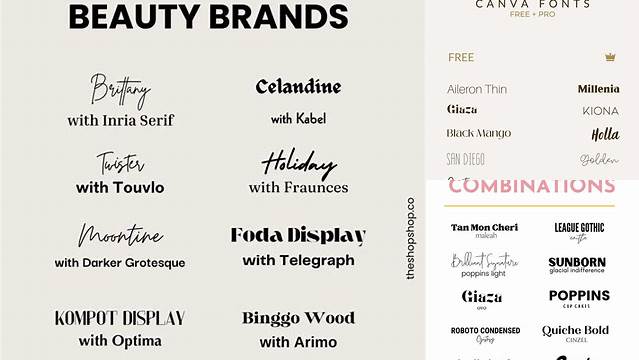
Best Canva Fonts For A Business Logo: Top Picks
Choosing the right font for your business logo is crucial. It’s like picking the perfect outfit for a first date – you want to make a strong impression! With Canva, you've got a treasure trove of fonts at your fingertips, but navigating them can feel overwhelming. Don't worry, guys! We're here to help you find the best Canva fonts to make your business logo stand out. This article will dive deep into a variety of fonts and how they can impact your brand identity, ensuring you pick a font that truly represents your business. Let's get started!
1. Canva Fonts for Modern Logos
When you're aiming for a modern logo, the font you choose plays a vital role in conveying that contemporary feel. Best Canva fonts for modern logos often feature clean lines, geometric shapes, and a minimalist aesthetic. Think of fonts like Montserrat, Raleway, and Poppins. These sans-serif fonts offer a sleek and uncluttered look, perfect for businesses that want to project a sense of innovation and sophistication. Choosing the right font is like selecting the perfect piece of furniture for a modern living room – it sets the tone for the entire space. Consider how the font's weight and spacing contribute to the overall impression. A lighter weight might suggest elegance, while a bolder weight can convey confidence and strength. Modern fonts are versatile and can be used across various industries, from tech startups to creative agencies. They're also highly readable, making them ideal for both online and offline applications. So, if you're going for a cutting-edge vibe, these Canva fonts are your go-to choices. Selecting the ideal modern font isn't just about aesthetics; it's about communicating your brand's values and vision in a visually compelling way. It’s about making a strong statement in the crowded marketplace.
2. Elegant Canva Fonts for Logos
For businesses aiming to exude sophistication and class, selecting elegant Canva fonts is essential. These fonts often feature delicate serifs, graceful curves, and a refined appearance. Think of fonts like Playfair Display, Garamond, and Didot. These fonts have a timeless quality, reminiscent of classic typography used in high-end brands. The best Canva fonts for elegant logos should convey a sense of luxury and attention to detail. Just as a beautifully tailored suit speaks volumes, your font choice can communicate the quality and prestige of your brand. When choosing an elegant font, consider how it will look in different sizes and contexts. A font that looks stunning in a large headline might become illegible when reduced for a business card. Pay attention to the font's spacing and kerning (the space between individual letters) to ensure a polished and professional appearance. Elegant fonts are particularly well-suited for industries such as fashion, beauty, hospitality, and high-end services. They can evoke a sense of trust, reliability, and sophistication, making your brand more appealing to discerning customers. Selecting Canva fonts that align with your brand's personality is crucial for building a strong and memorable identity. It's about creating a visual representation of your brand's values and aspirations.
3. Bold Canva Fonts for Impactful Logos
If you want your logo to make a statement, bold Canva fonts are the way to go. These fonts command attention with their strong presence and assertive character. Best Canva fonts in this category include Bebas Neue, Montserrat Bold, and Impact. These fonts are perfect for businesses that want to project confidence, power, and authority. Think of them as the equivalent of a firm handshake – they leave a lasting impression. Choosing a bold font isn't just about making your logo visible; it's about conveying your brand's message with conviction. A bold font can communicate strength, stability, and a no-nonsense attitude. However, it's important to use bold fonts judiciously. Overuse can make your logo appear cluttered and overwhelming. Balance is key. Pair a bold font with a simpler, more understated font for body text or other supporting elements. Consider the context in which your logo will be used. A bold font might be ideal for a billboard or website header but might be too intense for smaller applications like business cards or email signatures. When used effectively, bold Canva fonts can be a powerful tool for building brand recognition and creating a memorable visual identity. It’s about ensuring your brand doesn't just speak; it resonates.
4. Creative Canva Fonts for Unique Logos
For businesses that thrive on originality and innovation, creative Canva fonts are a must. These fonts break the mold with their unique shapes, unconventional designs, and artistic flair. The best Canva fonts for creative logos include fonts like Lobster, Pacifico, and Amatic SC. These fonts are perfect for brands that want to stand out from the crowd and express their individuality. Choosing a creative font is like selecting a piece of art – it's about making a statement and showcasing your brand's personality. Creative fonts can add a touch of whimsy, playfulness, or sophistication to your logo. They can evoke emotions and spark curiosity, making your brand more memorable and engaging. However, it's important to choose a creative font that is still legible and appropriate for your target audience. A font that is too stylized or difficult to read can undermine your brand's message. Consider the overall tone and aesthetic of your brand. A creative font should complement your brand's personality and values, not clash with them. When used effectively, creative Canva fonts can be a powerful tool for building a unique and memorable brand identity. It’s about ensuring your brand doesn't just exist; it captivates.
5. Minimalist Canva Fonts for Clean Logos
Minimalist logos are all about simplicity and clarity, and the font you choose plays a crucial role in achieving this aesthetic. The best Canva fonts for minimalist logos typically feature clean lines, geometric shapes, and a lack of ornamentation. Fonts like Montserrat, Open Sans, and Lato are excellent choices. These fonts offer a modern and uncluttered look, perfect for businesses that want to project a sense of sophistication and efficiency. Choosing a minimalist font is like opting for a streamlined wardrobe – it's about conveying elegance through simplicity. Minimalist fonts are highly versatile and can be used across a wide range of industries, from technology and finance to fashion and design. They are also highly readable, making them ideal for both online and offline applications. When selecting a minimalist font, consider the font's weight and spacing. A lighter weight can suggest delicacy and refinement, while a slightly bolder weight can convey confidence and stability. Pay attention to the kerning and tracking (the overall spacing between letters) to ensure a polished and professional appearance. Minimalist Canva fonts can help you create a logo that is both timeless and contemporary. It’s about making your brand's message clear and impactful in a visually understated way.
6. Script Canva Fonts for Elegant Logos
Script fonts add a touch of elegance and personality to logos, making them a popular choice for brands seeking a sophisticated and unique identity. The best Canva fonts in the script category include Great Vibes, Allura, and Alex Brush. These fonts mimic the fluidity of handwriting, adding a human touch to your logo. Script fonts are particularly well-suited for businesses in the beauty, fashion, and wedding industries, where a sense of refinement and artistry is valued. Choosing a script font is like selecting a signature scent – it's about creating a lasting impression. However, it's crucial to use script fonts judiciously. Overuse can make your logo appear cluttered and difficult to read. It's best to pair a script font with a simpler, more legible font for body text or other supporting elements. Consider the readability of the script font at different sizes. A font that looks beautiful in a large headline might become illegible when reduced for a business card. When used effectively, script Canva fonts can elevate your logo and convey a sense of elegance and craftsmanship. It's about ensuring your brand’s visual identity embodies sophistication and a personal touch.
7. Serif Canva Fonts for Traditional Logos
Serif fonts are characterized by the small strokes or